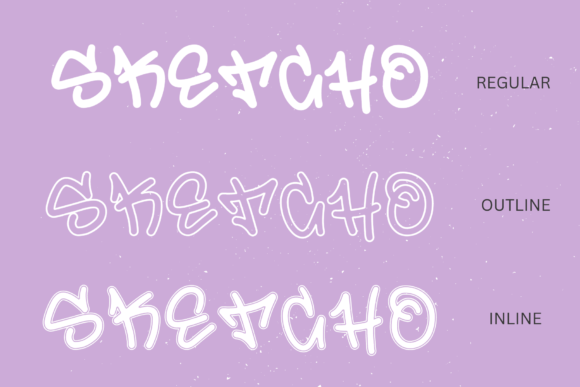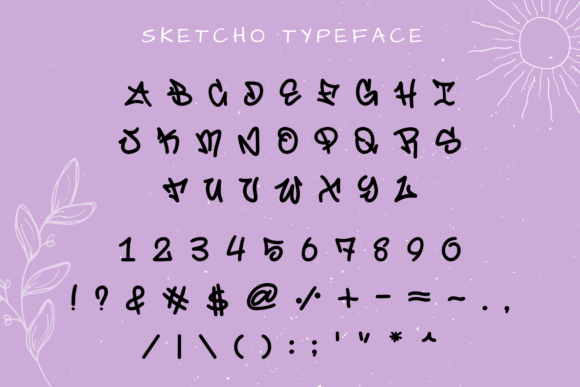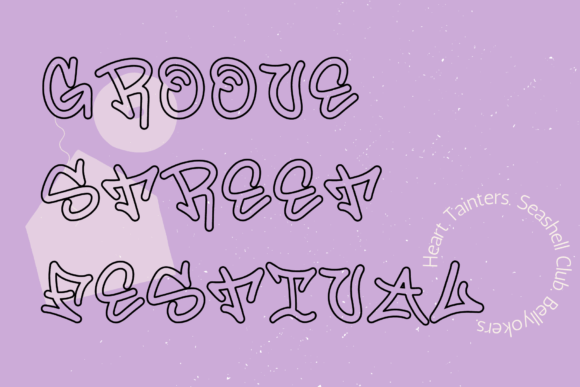
Introduction to Sketcho Font
Sketcho is a dynamic and edgy display font that captures the essence of street-style graffiti.
Its bold, jagged letters create a distinct urban look and feel, making it perfect for eye-catching headlines and bold designs Sketcho is the perfect font for any project looking to add a touch of urban edge and attitude.